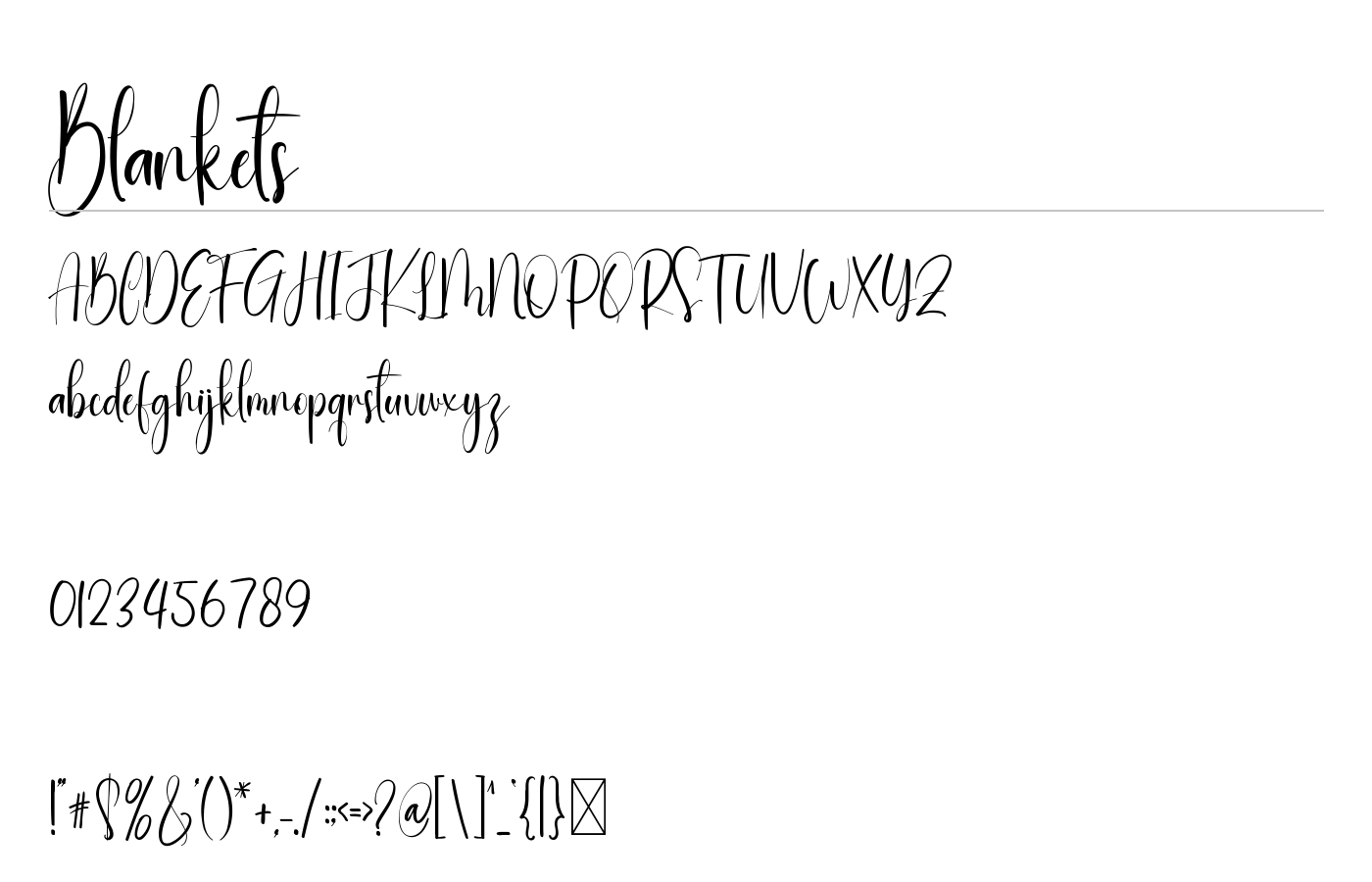
Blankets Font is an elegant, handwritten script font characterized by its tall, slender letterforms and delicate, flowing strokes. Its light weight and graceful curves give it a sophisticated yet approachable feel, making it ideal for invitations, branding, and any designs seeking a personal, artistic touch. This font works beautifully in headlines and logos where expressive, refined style is key.
Blankets Font
About Blankets Font